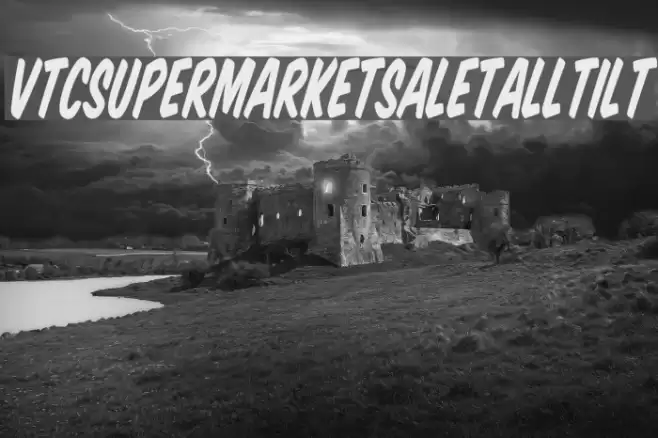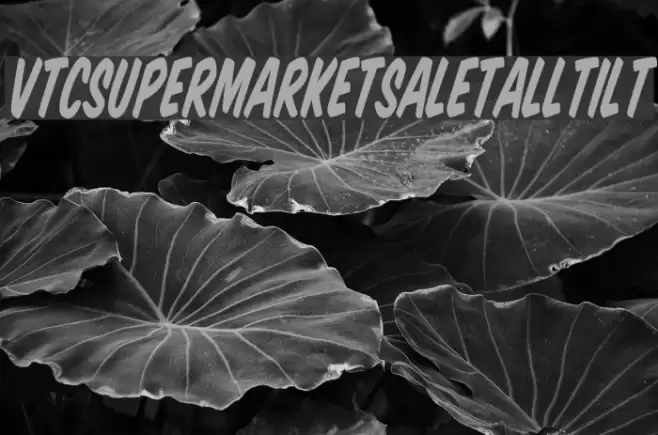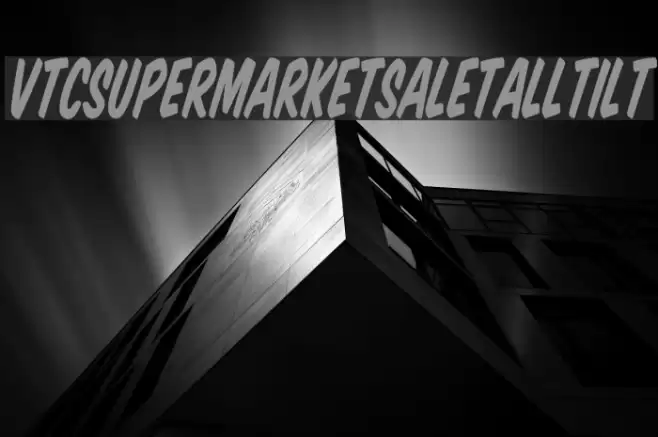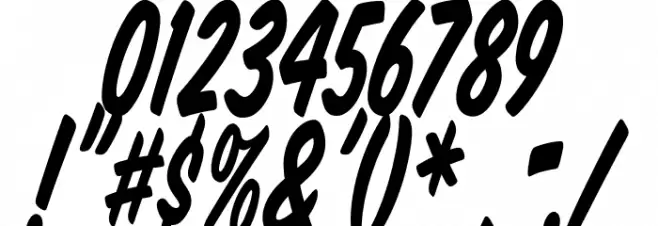
VTCSuperMarketSaleTallTilt Font
VTCSuperMarketSaleTallTilt Description
This font features a bold and dynamic style with a distinct slant, giving it a sense of motion and energy. The characters are tall and slightly condensed, with thick strokes that create a strong visual impact. The uppercase and lowercase letters maintain a consistent style, with rounded edges and a playful, informal appearance. The numbers and special characters are designed to match the overall aesthetic, ensuring a cohesive look across all text. This font is ideal for creating eye-catching headlines and promotional materials that need to grab attention quickly.
A bold, slanted font with a dynamic and energetic style from Uncategorized fonts.
- Proposed Projects: Perfect for advertising, posters, and branding projects that require a bold and attention-grabbing typeface.